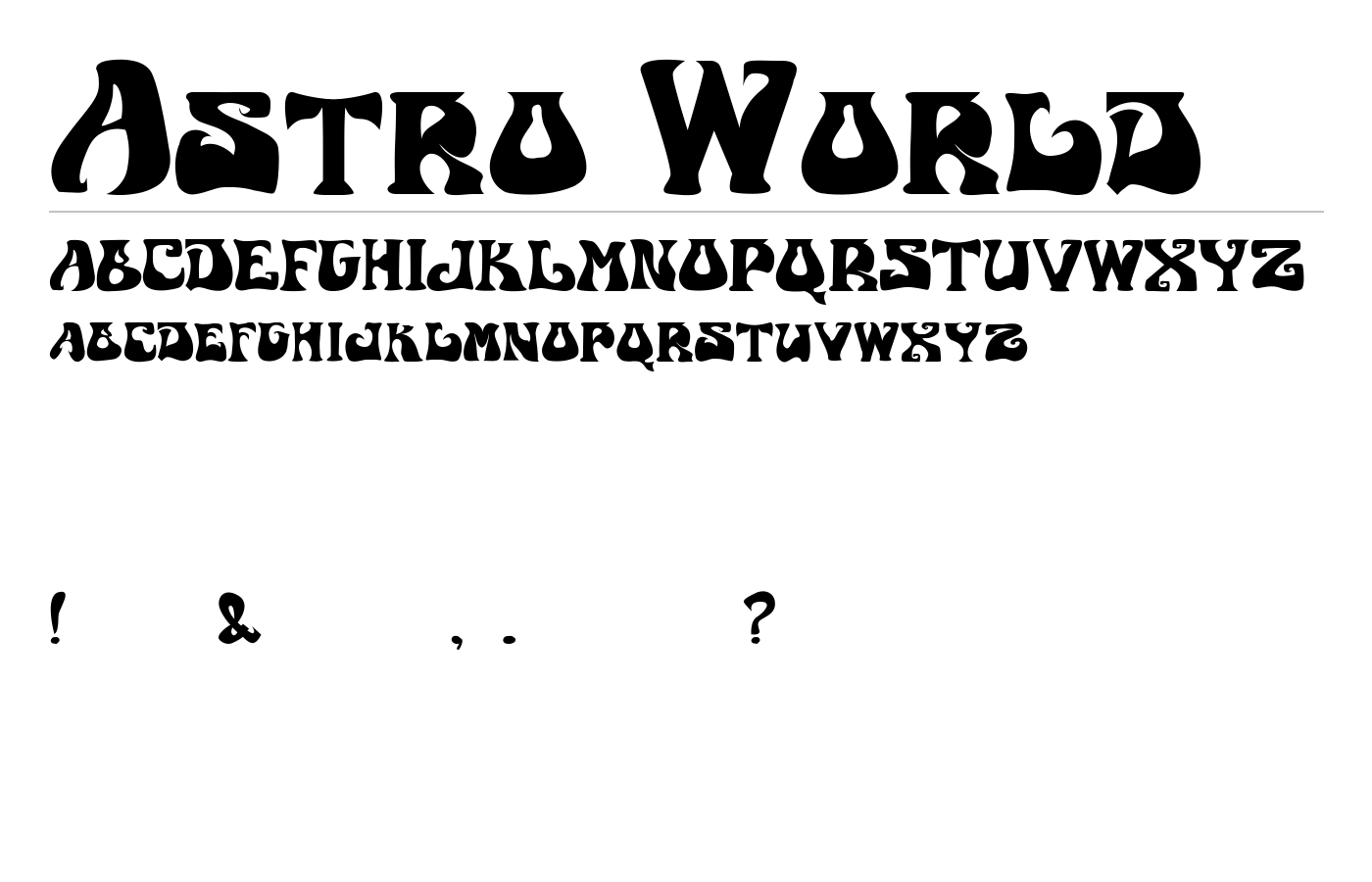
Astro World is a bold, decorative display font with a playful, retro vibe that blends thick, organic shapes and whimsical curves, evoking a vintage psychedelic style. Its heavy weight and unique letterforms make it ideal for attention-grabbing headlines, logos, or creative projects that want to convey fun, nostalgia, and artistic flair. This font works best on posters, packaging, and branding where a distinctive, expressive personality is needed.
Astro World Font